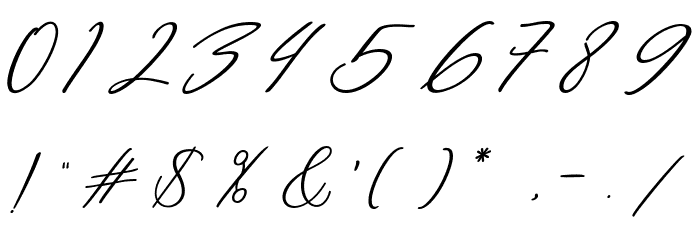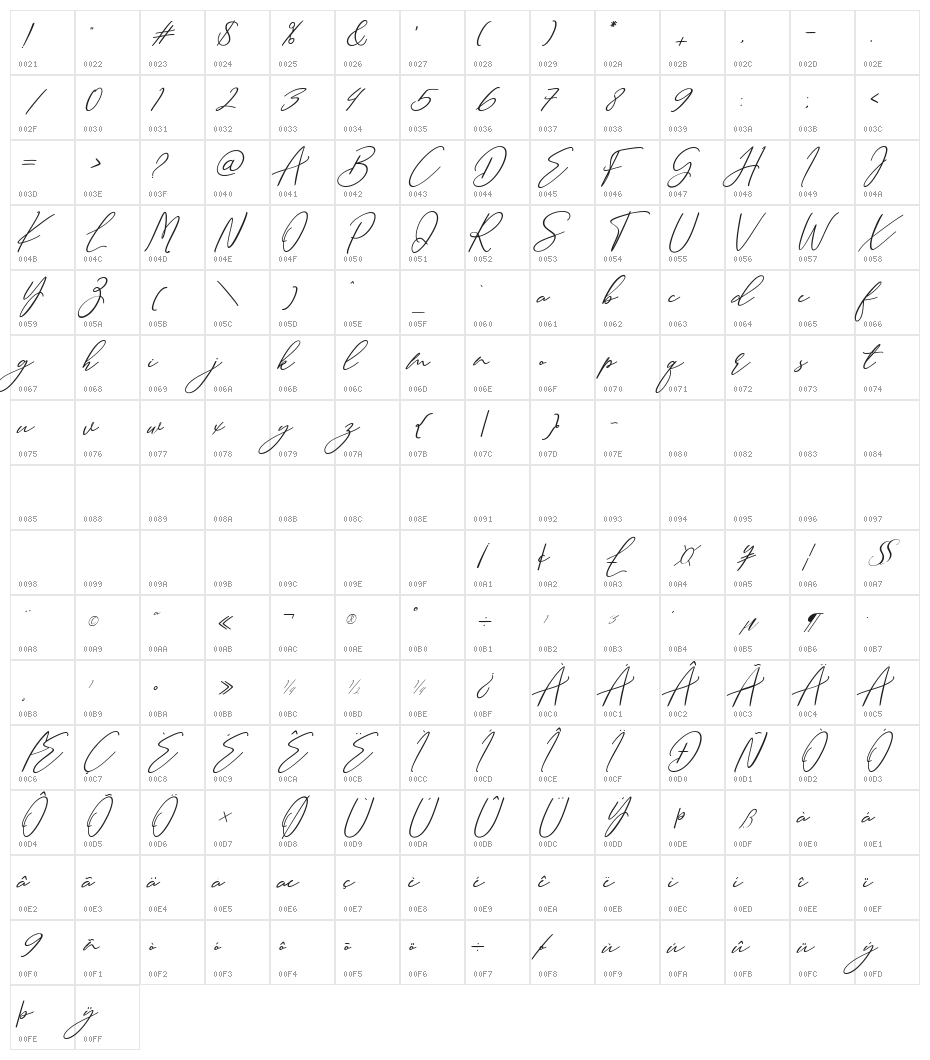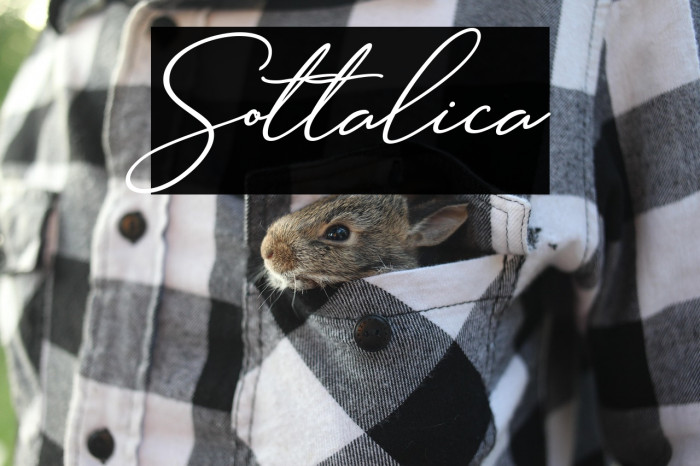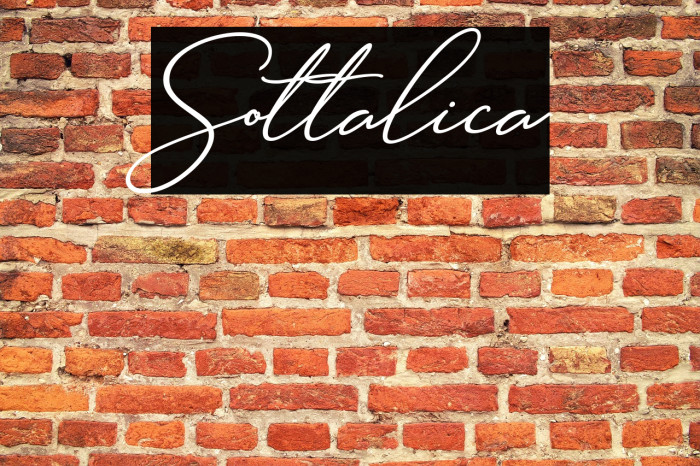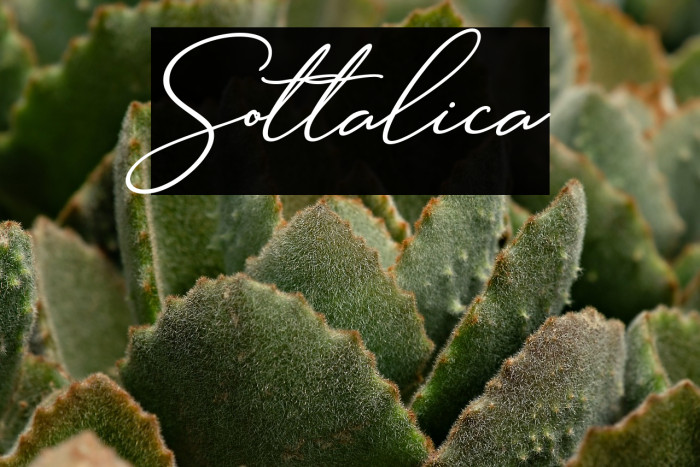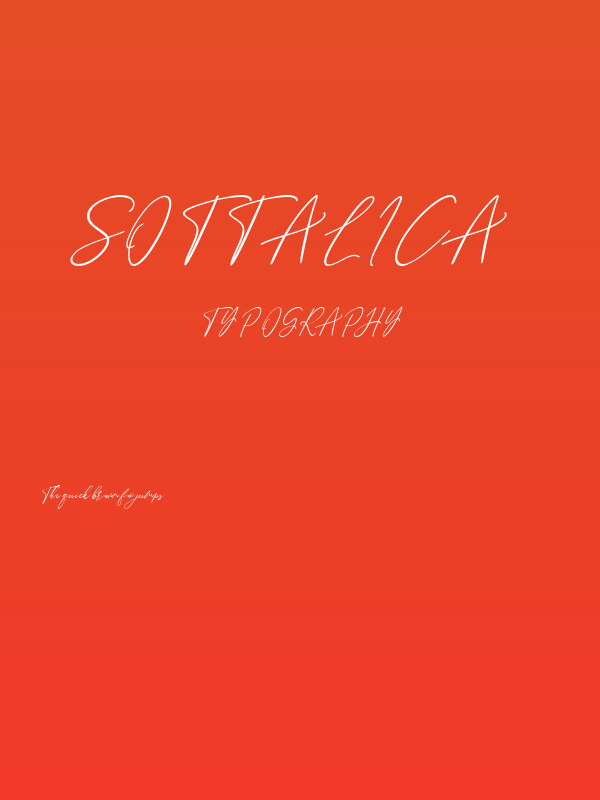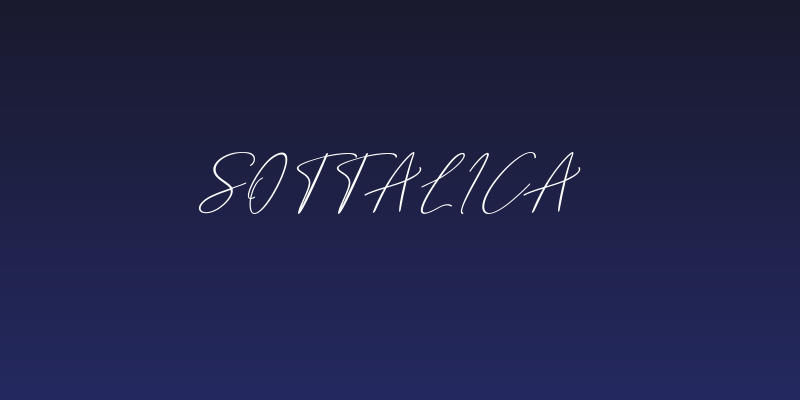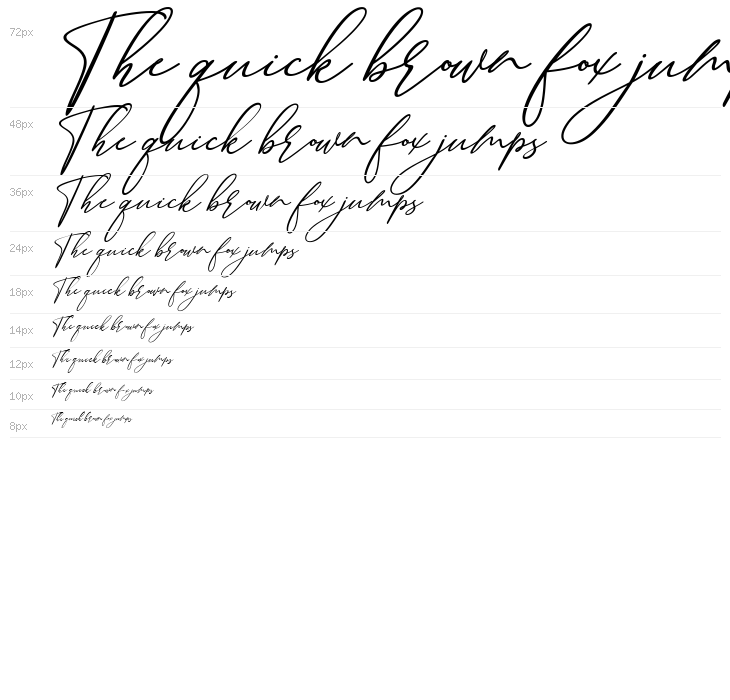
Sottalica Font
Sottalica Description
This elegant script font features fluid, cursive strokes that mimic the natural flow of handwriting. The uppercase letters are tall and graceful, with sweeping ascenders and descenders that add a touch of sophistication. The lowercase letters maintain a consistent slant, enhancing the font's cohesive appearance. Numbers and special characters are designed with the same attention to detail, ensuring a harmonious look across all text. The overall style is both classic and modern, making it versatile for various design needs.
| Overall Style | Elegant, Classic |
| Use Case | Logos, Invitations, Personal Signatures |
| Proposed Projects | Ideal for wedding invitations, elegant branding, personal signatures, and artistic projects. |